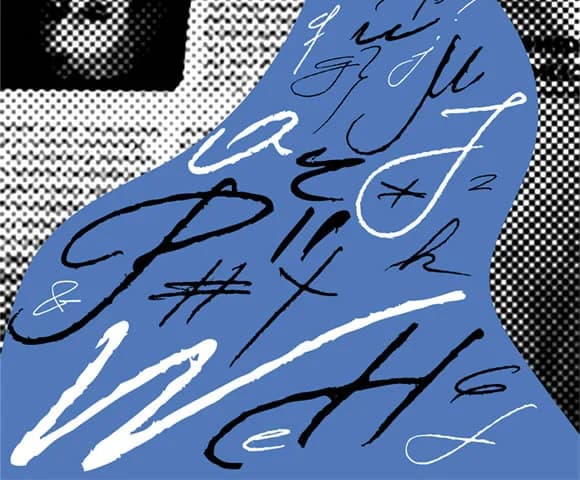
About Miodrag Font
Miodrag by Milena Gajovic is a flowing handwritten script typeface that brings genuine warmth and expressive personality to any creative project. The typeface features organic, naturally curved letterforms that skillfully balance authentic handwriting character with excellent readability, creating a distinctive piece that feels both deeply personal and professionally polished for creative work.
The script's carefully crafted letterforms make it particularly effective for luxury wedding invitation suites, custom greeting card designs, and boutique product packaging where authentic personality matters most. Whether you're creating hand-lettered social media captions, designing artisan label work for small beauty brands, or developing personalized gift packaging with meaningful details, Miodrag's flowing lines deliver consistent visual impact and distinctive charm. The typeface shines equally for decorative blog headers, book covers, and any design work that requires the warmth of genuine handwriting while maintaining clarity and professional presentation standards.
Miodrag's character-driven aesthetic especially resonates with designers and crafters who want their work to feel authentically handmade rather than mass-produced and generic. The thoughtful balance between expressive flair and reliable legibility means your message remains clear and accessible while preserving the personal, handcrafted feel that modern audiences increasingly value. Find Miodrag on Creative Fabrica and bring authentic human artistry to your next creative endeavor.
Miodrag Font is a script font that shines as a display or heading face. Pair it with a clean sans-serif or serif font for body text β the contrast creates a clear hierarchy while the two styles stay balanced and easy to read.